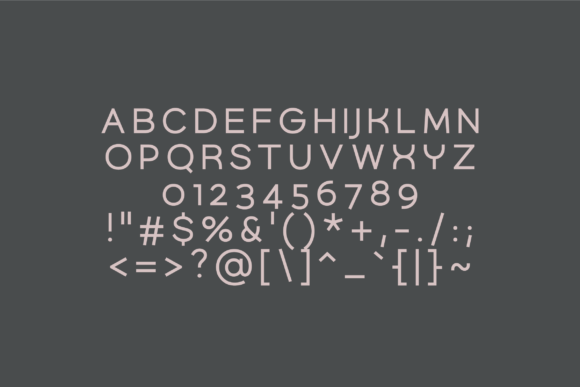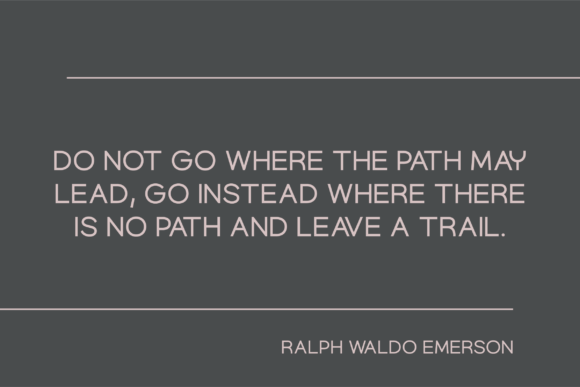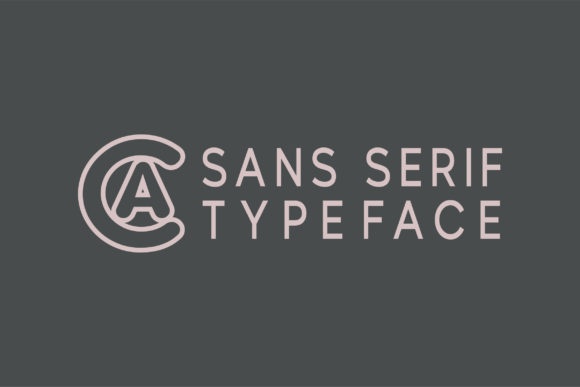
Introduction to Phaedros Font
Unveiling Phaedros, a chic, contemporary sans serif typeface.
Phaedros flaunts an assortment of capital characters, numerals from 0-9 and an extensive array of punctuation and symbols Radiating versatility, this font seamlessly integrates with a myriad of projects, whether itโs infusing sophistication into logos, adding a touch of elegance to wedding invites or invitations, creating evocative quotes, enhancing advertsโ power, giving print media a modern edge, or enriching magazines with a distinct flair.
Key Features of Phaedros Font